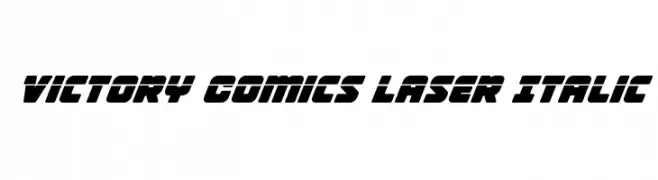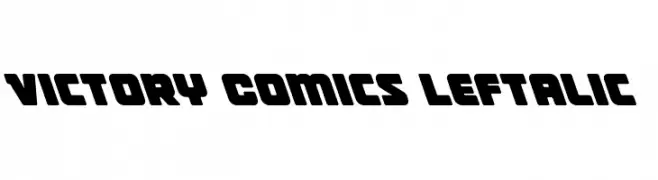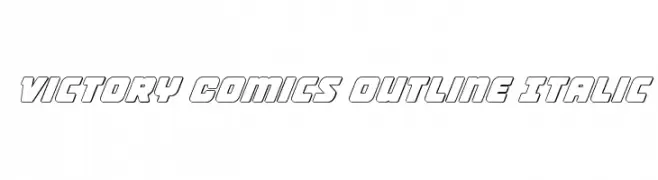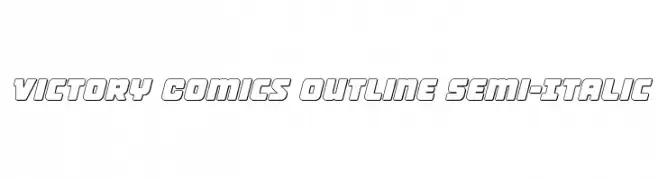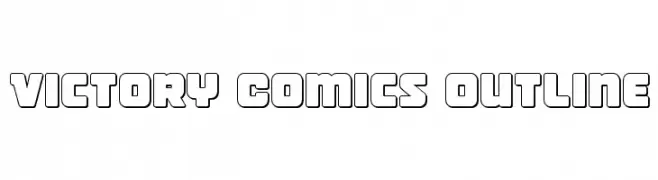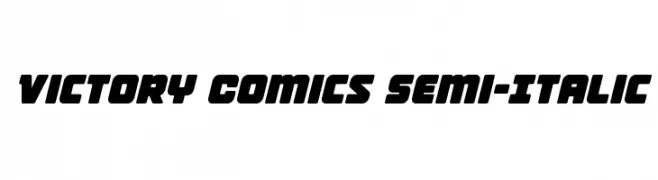
A bold, italicized font with a futuristic and geometric design.
A bold, slanted font with a dynamic, comic-inspired style.
A bold, outlined font with a playful, geometric style.
A bold, outlined, italic font with a playful and dynamic style.
A bold, outlined, semi-italic font with a playful and modern style.
A bold, semi-italic font with a dynamic, comic-inspired style.
A bold, blocky font with a comic book title style.
A bold, italicized font with a dynamic, comic book style.
A bold, two-tone font with horizontal stripes creating a dynamic and modern look.
A bold, italicized font with a two-tone striped effect, exuding energy and movement.